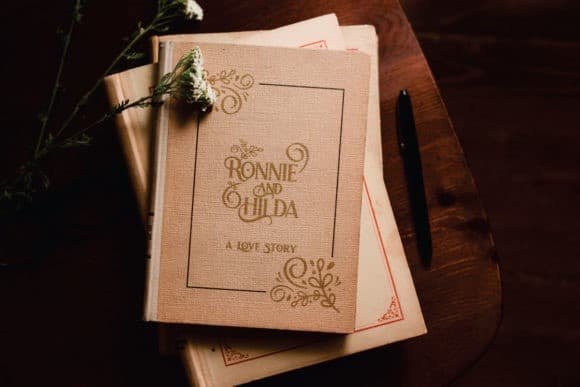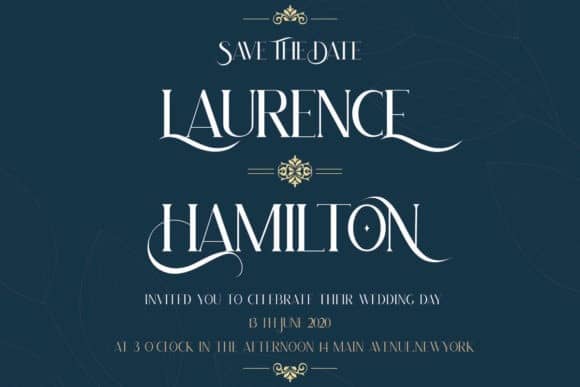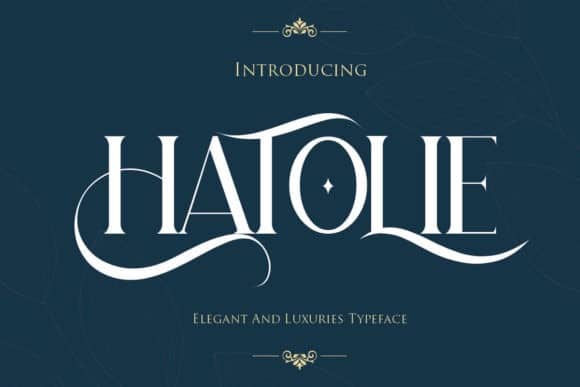
Hatolie Serif Font
Hatolie Serif Font is a modern serif font with celestial motives. The font is easy to use in various design programs or without any program. Made from font designer named Gilar Studio. This font is an incredibly elegant and beautiful serif font. It can easily be matched to an incredibly large set of projects, so add it to your creative ideas and notice how it makes them stand out!